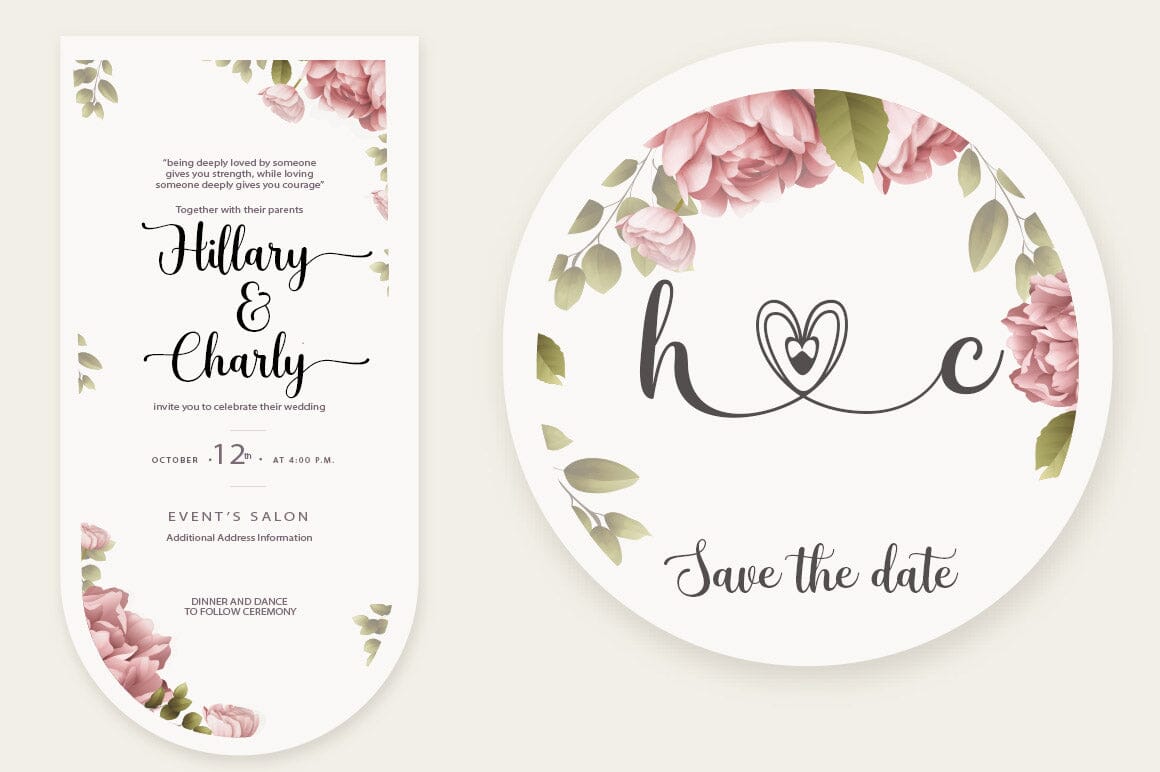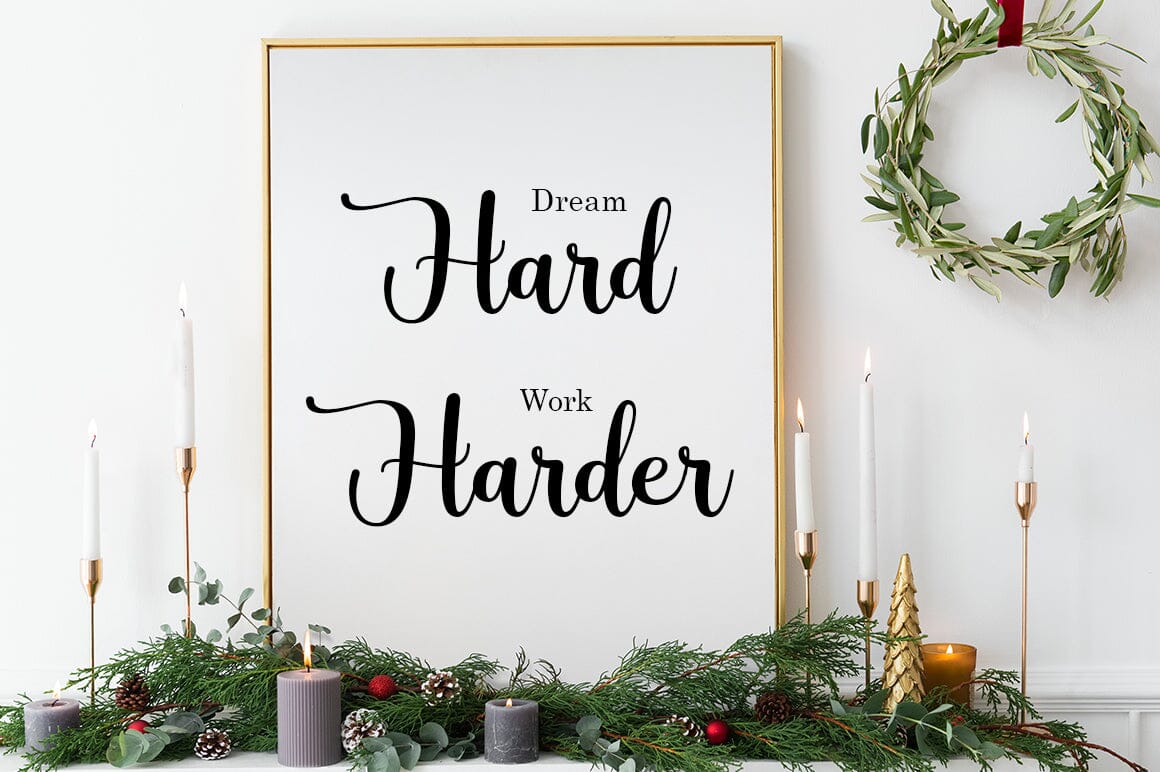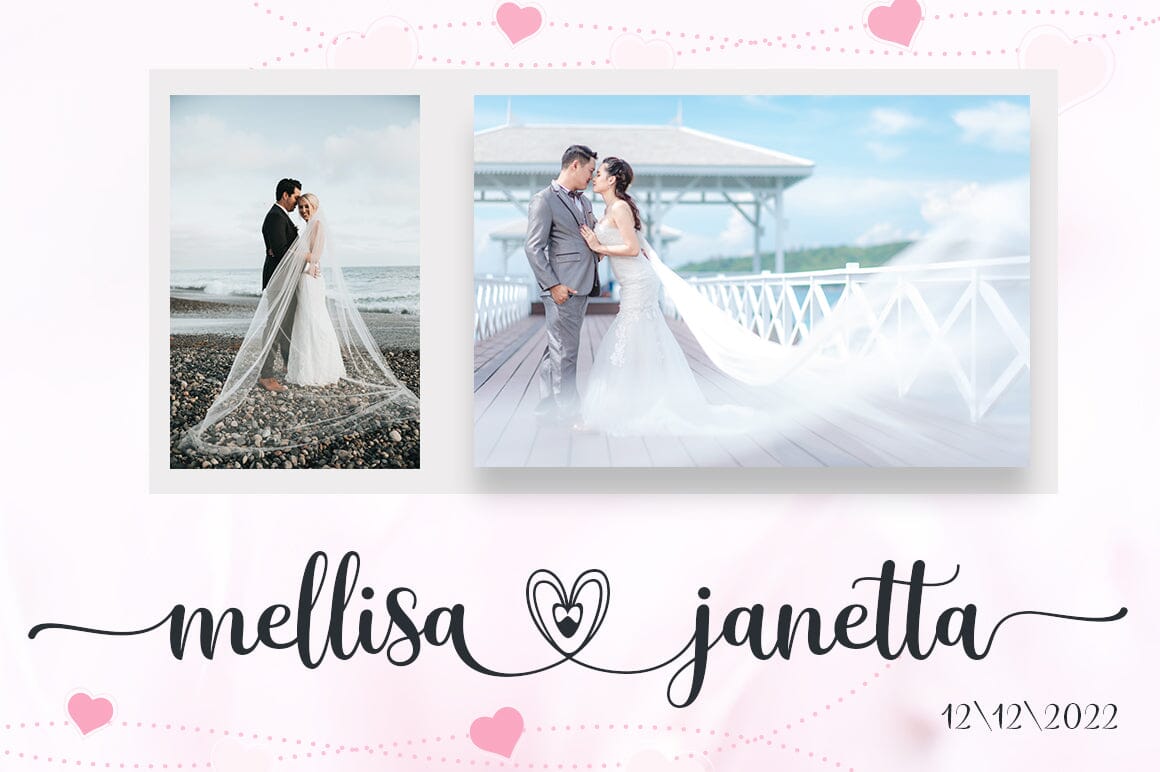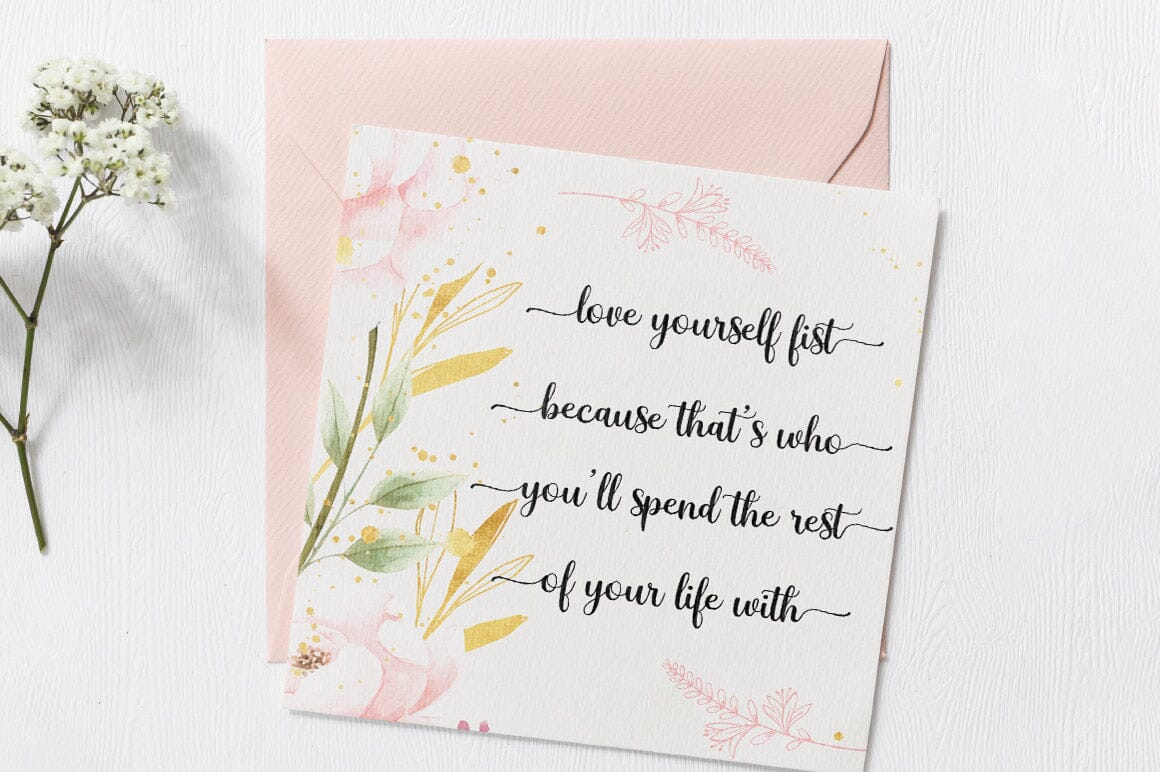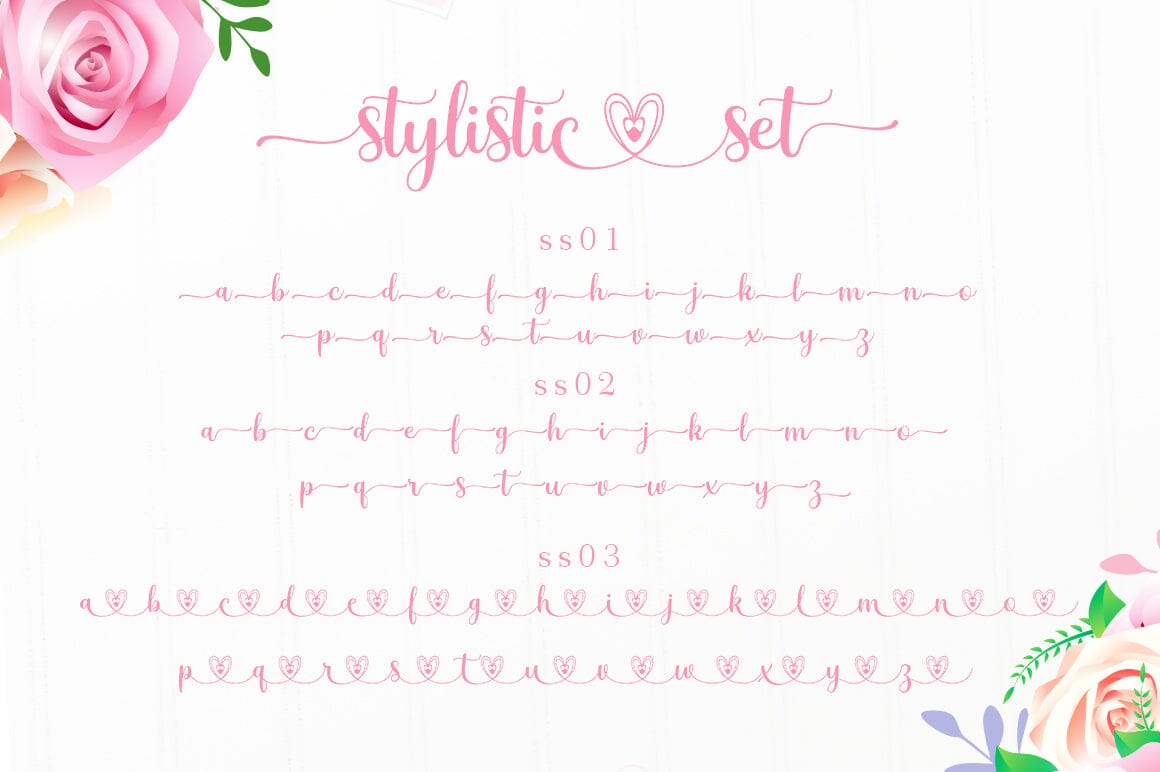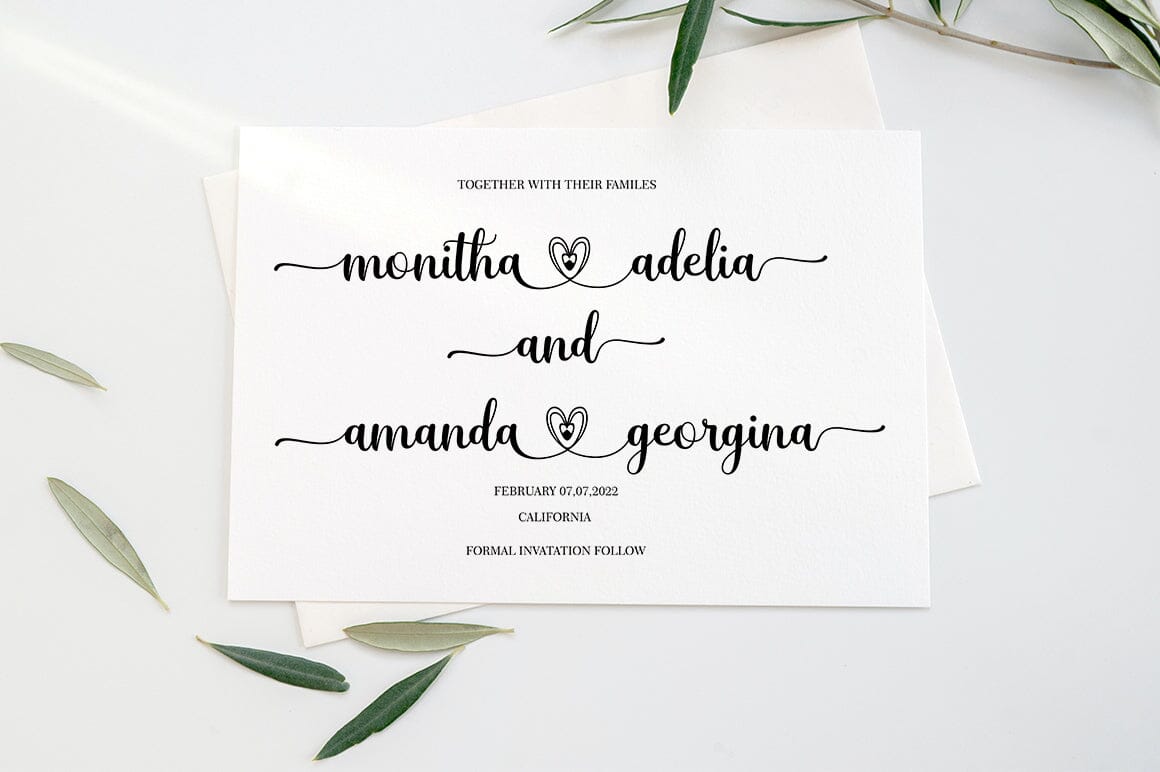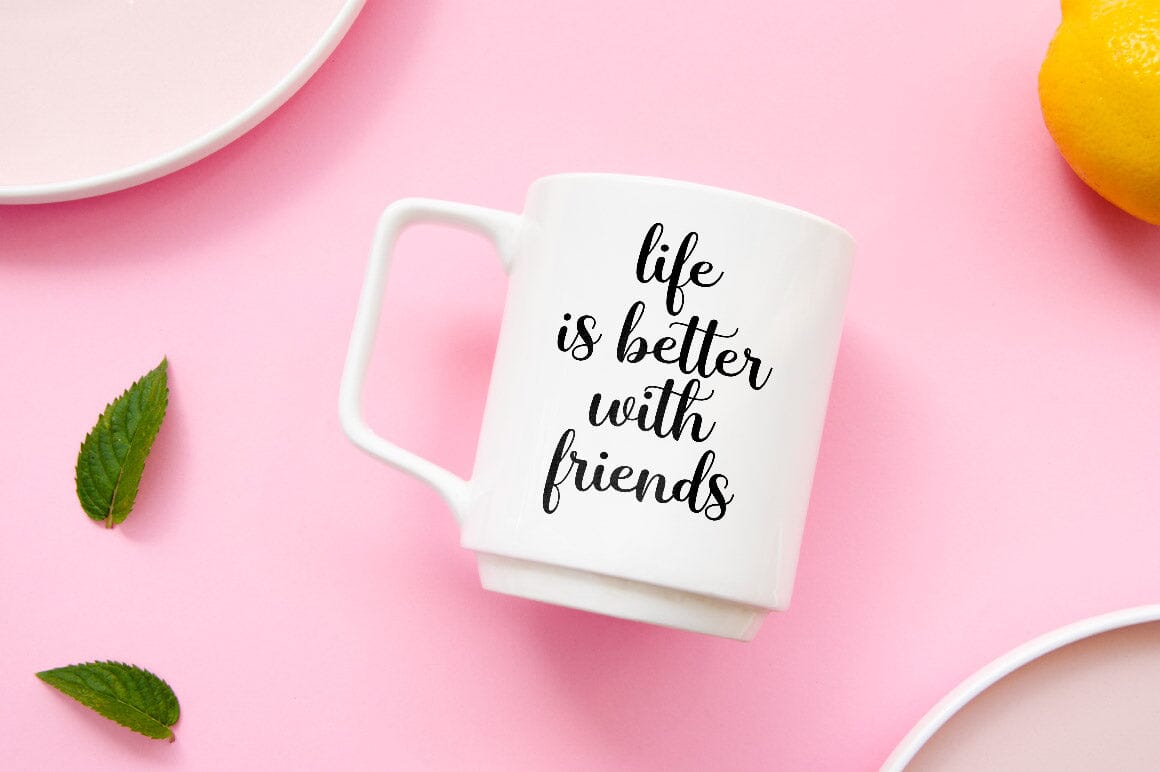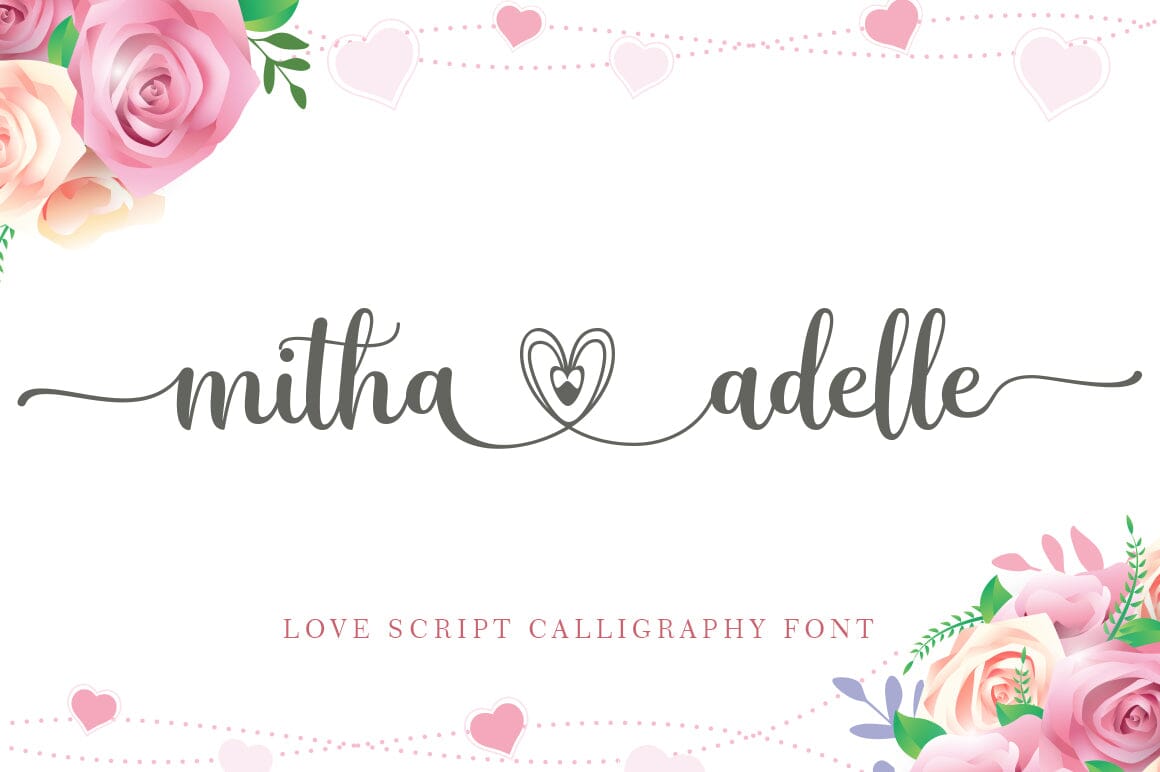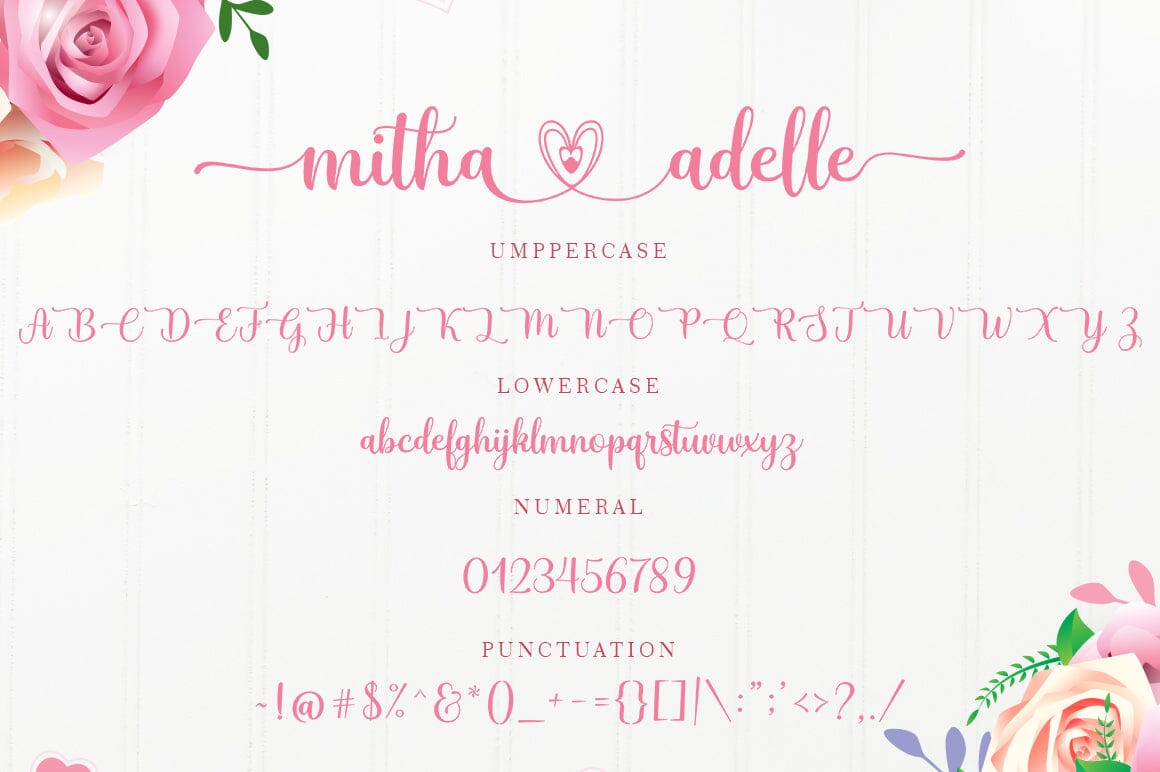
mitha adelle love script calligraphy font
About mitha adelle love script calligraphy font
mitha adelle Script – new, fresh, funny, catchy, funny calligraphy font with relatable heart. Great for greeting cards, branding materials, business cards, quotes, posters and more! mitha adelle Script – includes many alternative characters. Coded with Unicode PUA, which allows full access to all additional characters without having any special design software. Mac users can use Font Book. Windows users can use the Character Map to view and copy any of the additional characters to paste into your favorite text editor. For people who have opentype-capable software: Alternatives can be accessed by activating the \”Alternate Styles\” and \”Ligature\” buttons on Photoshop’s Character panel, or via any software with a glyph panel, eg. Adobe Illustrator, Photoshop CC, Inkscape. Files include: – The script mitha adelle.OTF – mitha adelle Script.TTF Thank you for purchasing!